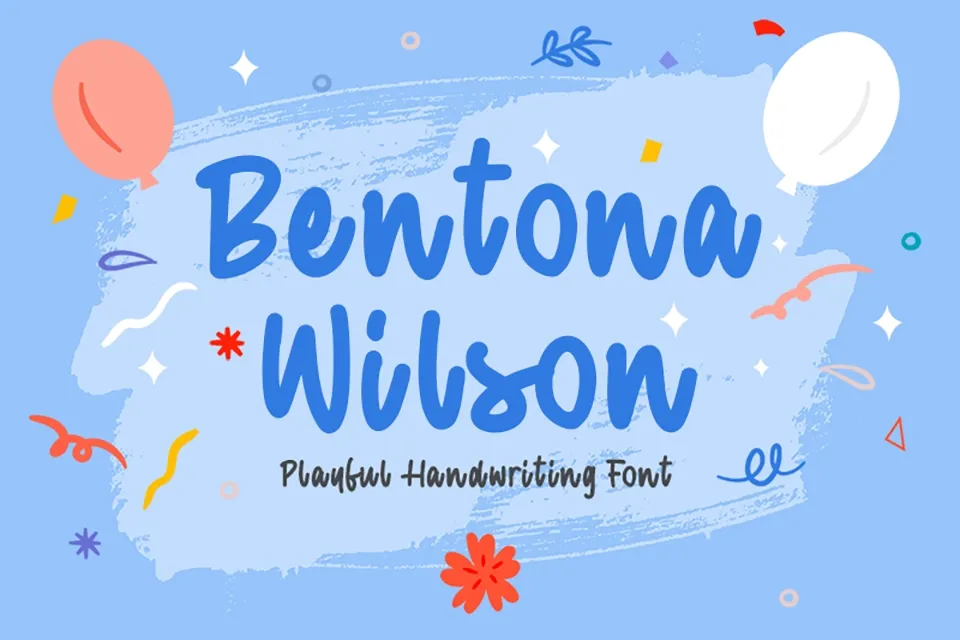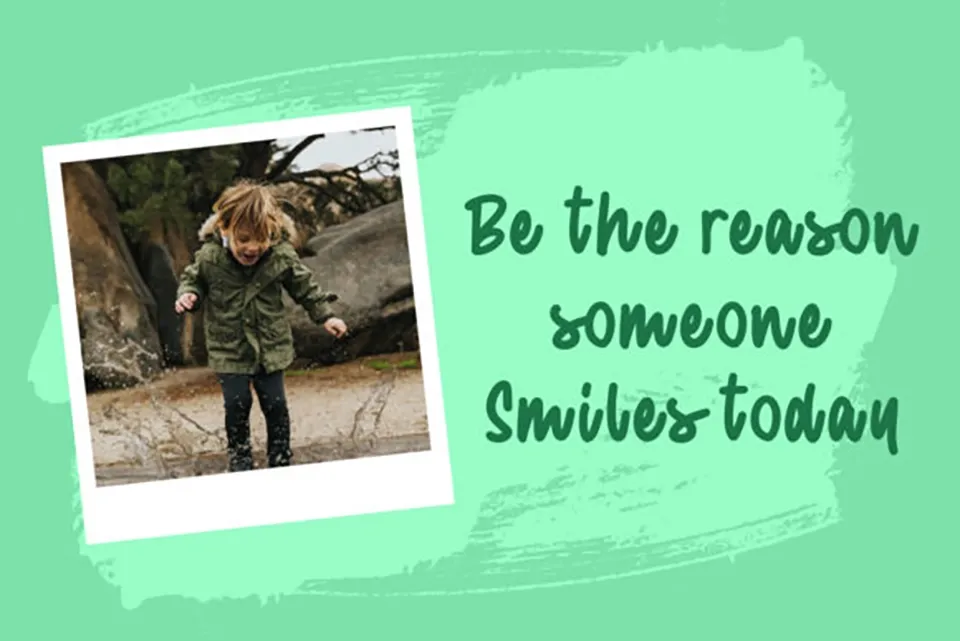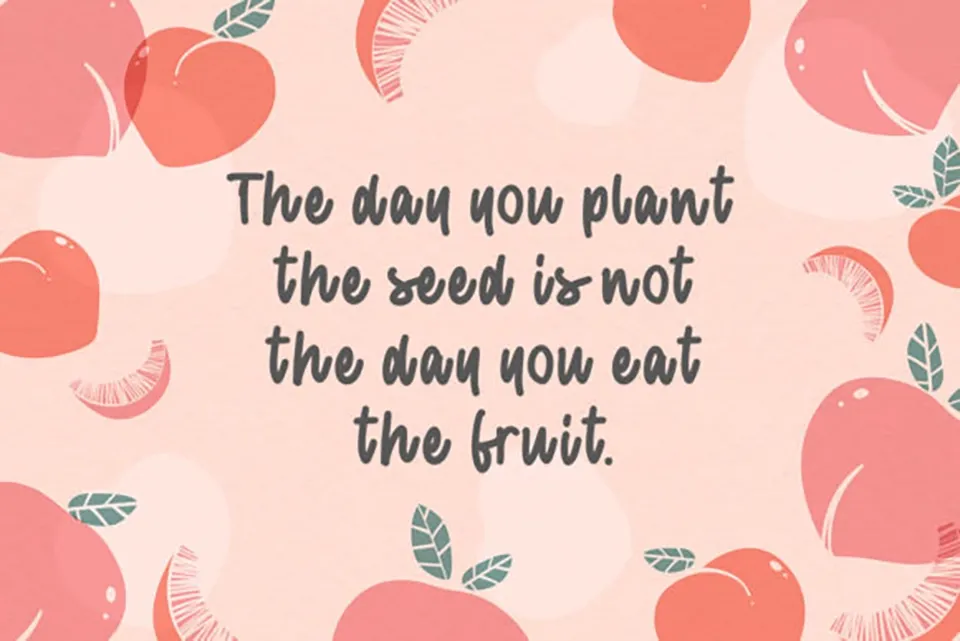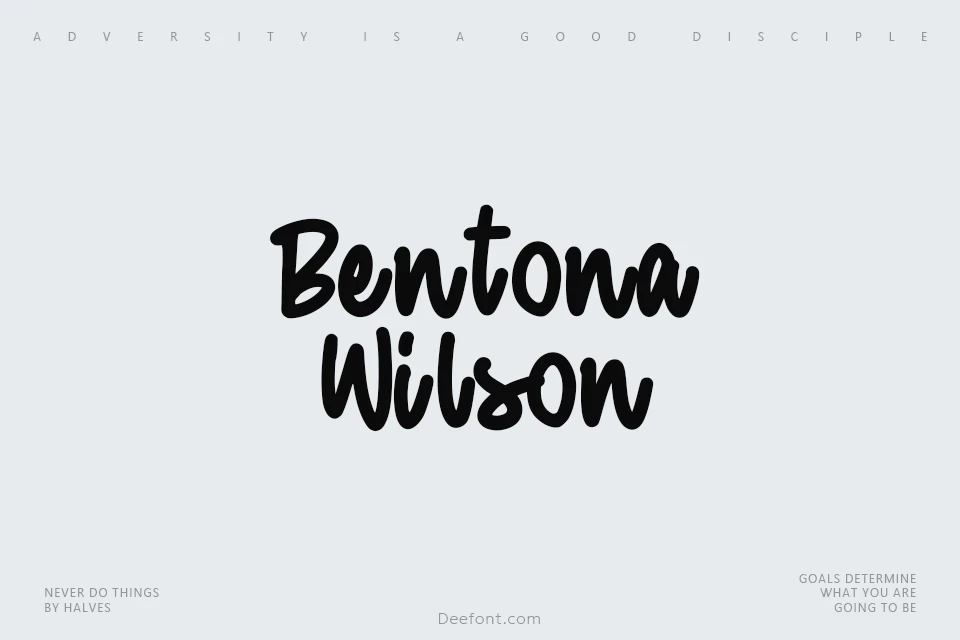
Bentona Wilson Font
Bentona Wilson Font is a charming, handwritten typeface with a chunky style. Add this vibrant and friendly font to your creative projects to bring them to life. Its colorful and playful nature enhances visual appeal, making your ideas more engaging and lively.